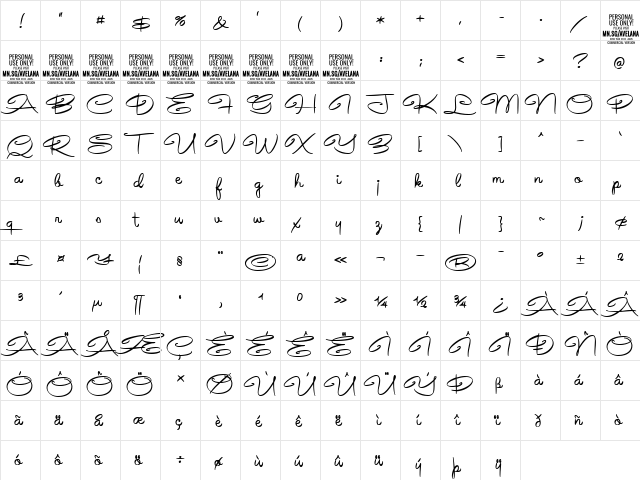
Avelana Medi PERSONAL USE Regular
| Foundry | Mans Greback |
| Designer | Mans Greback |
Design Context for Avelana Medi PERSONAL USE Typeface
Avelana Medi PERSONAL USE is a composed and adaptable typeface that performs quietly and consistently across a wide range of design contexts.